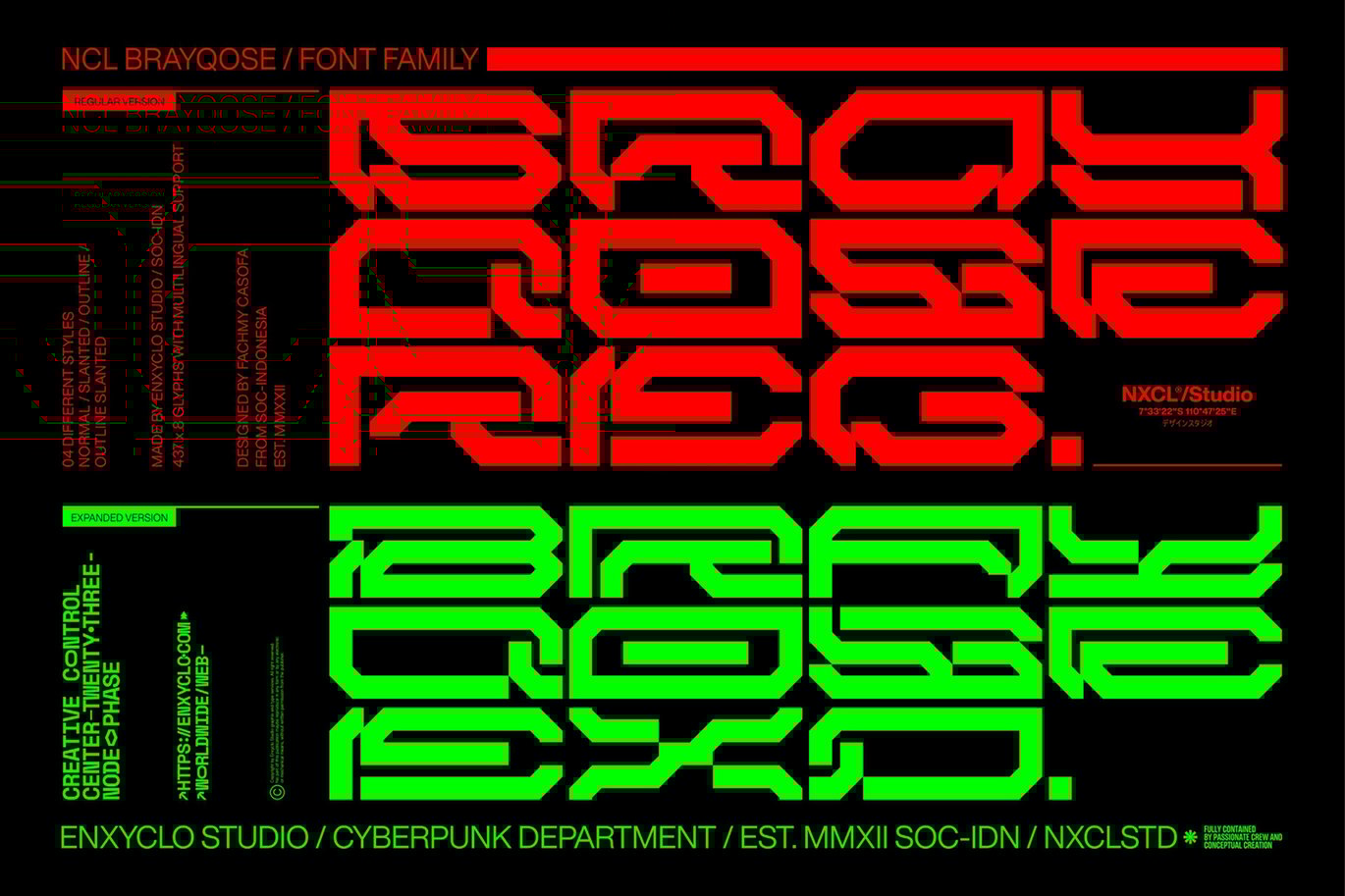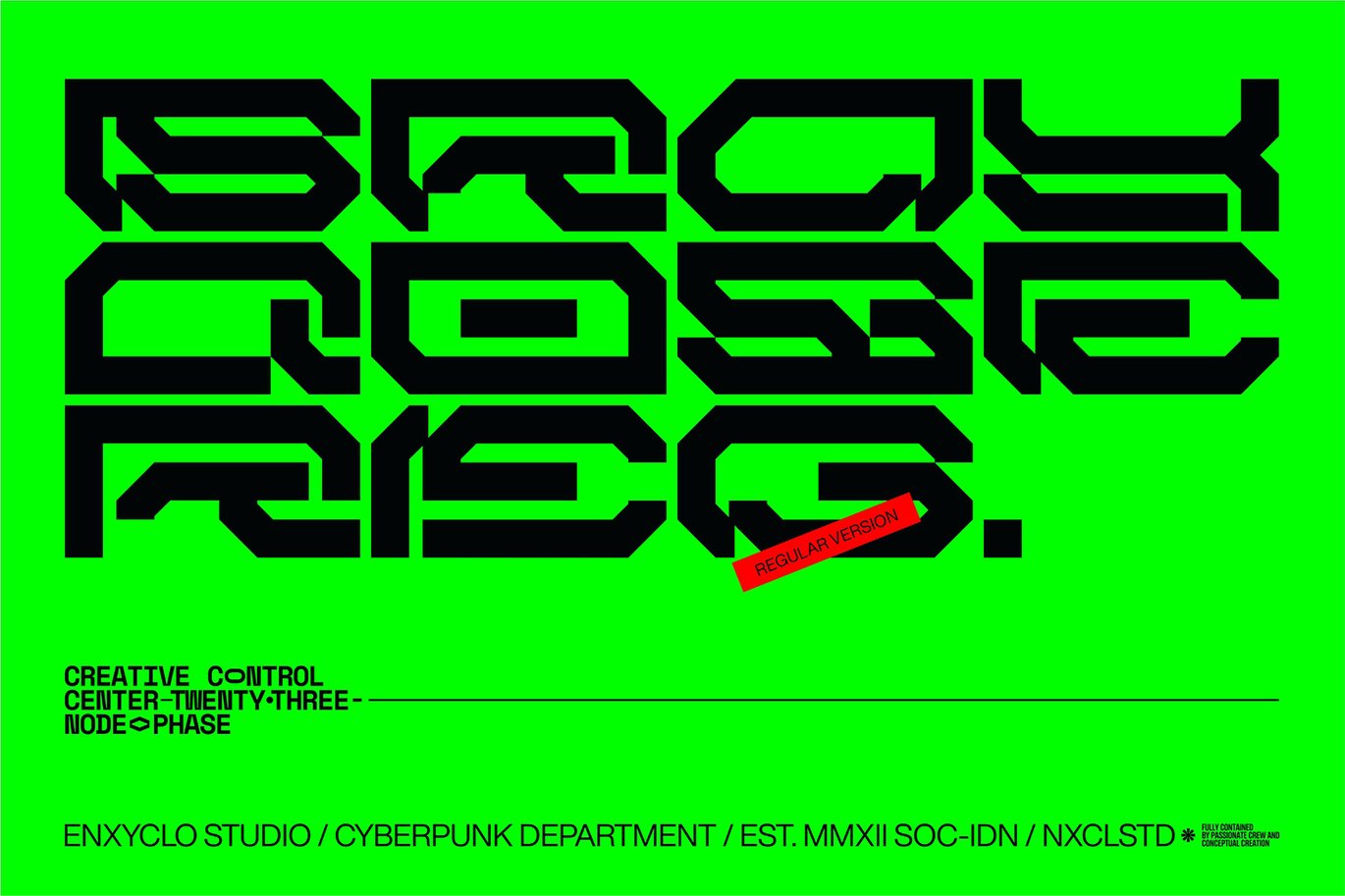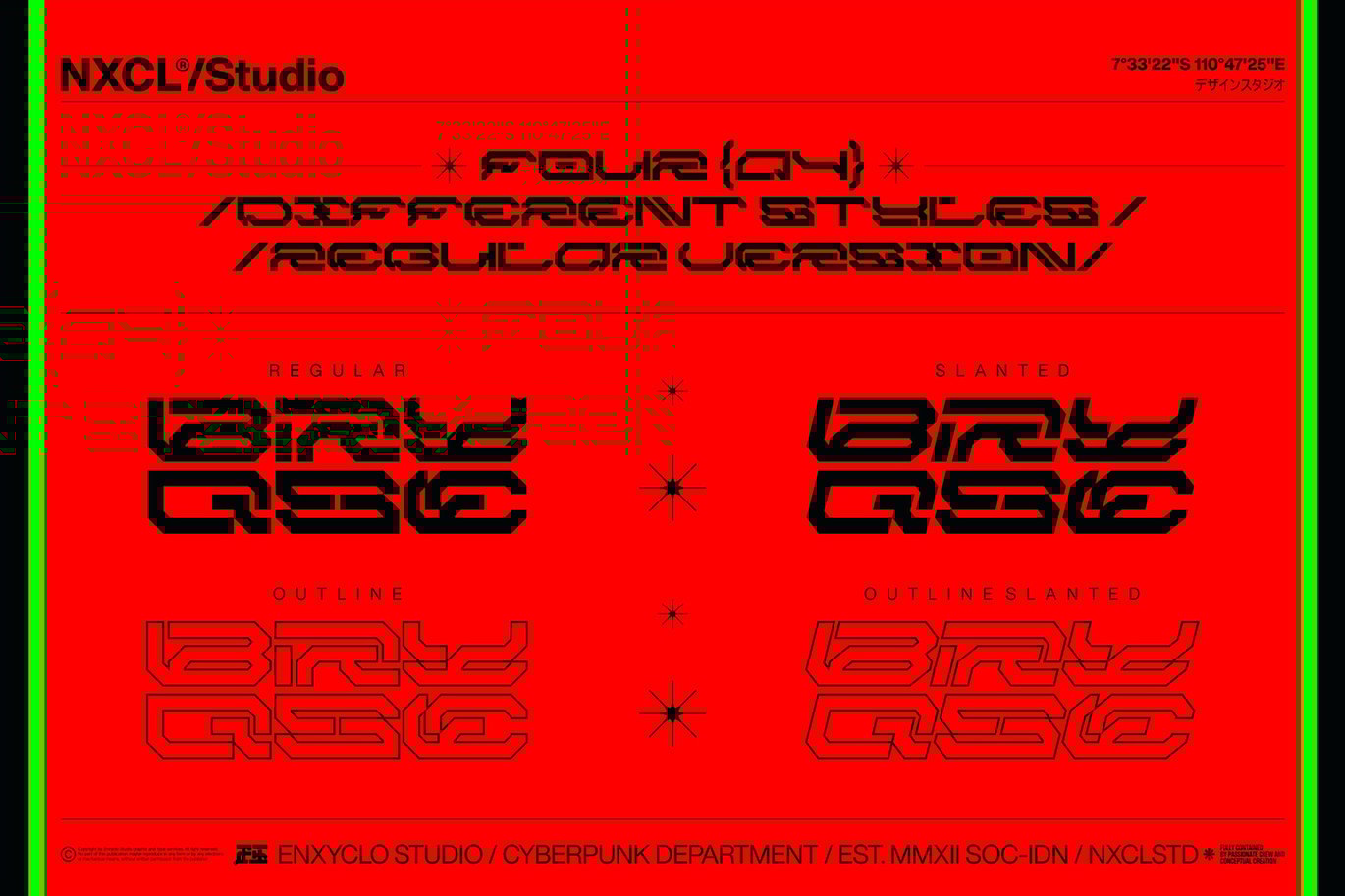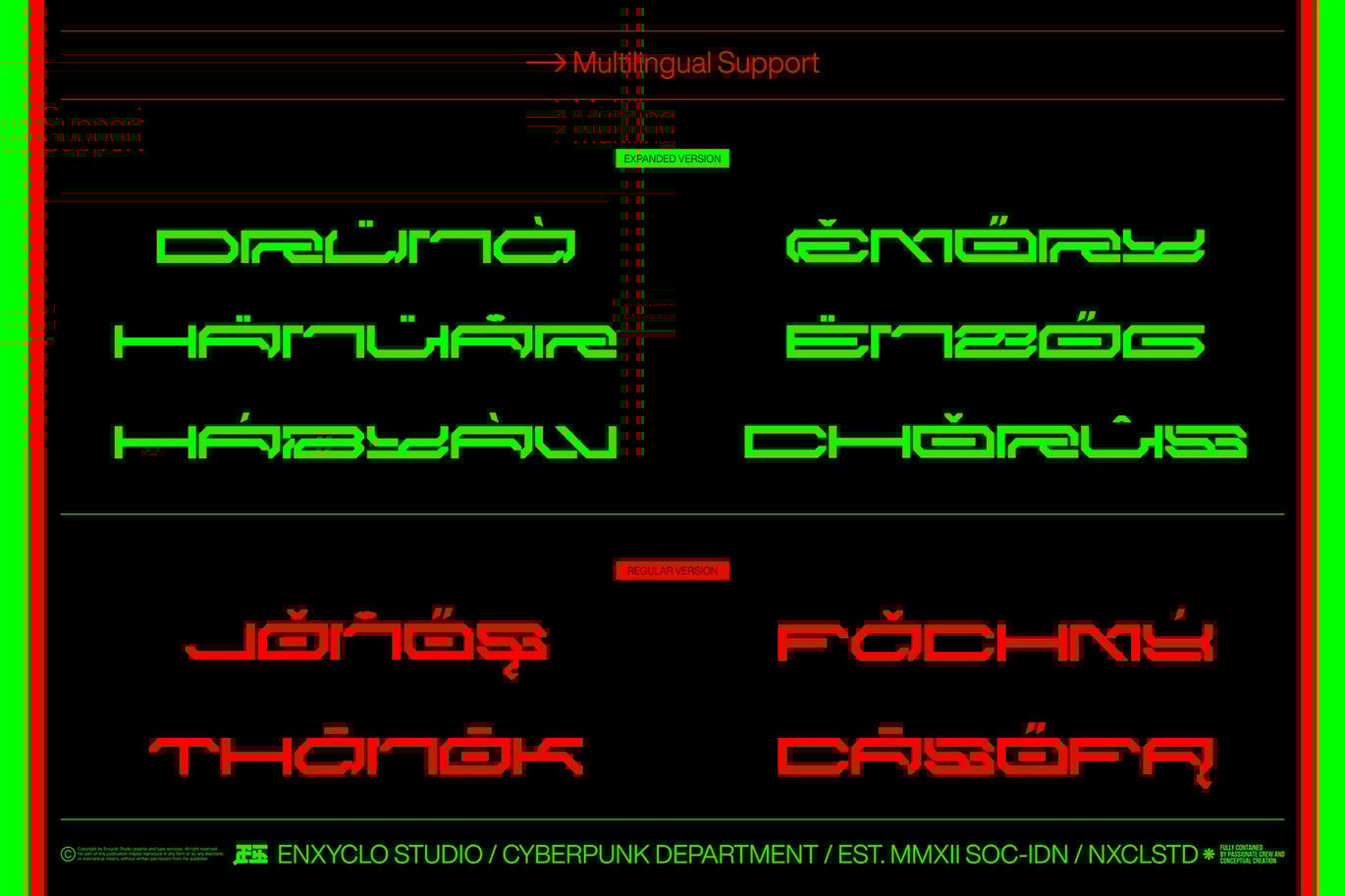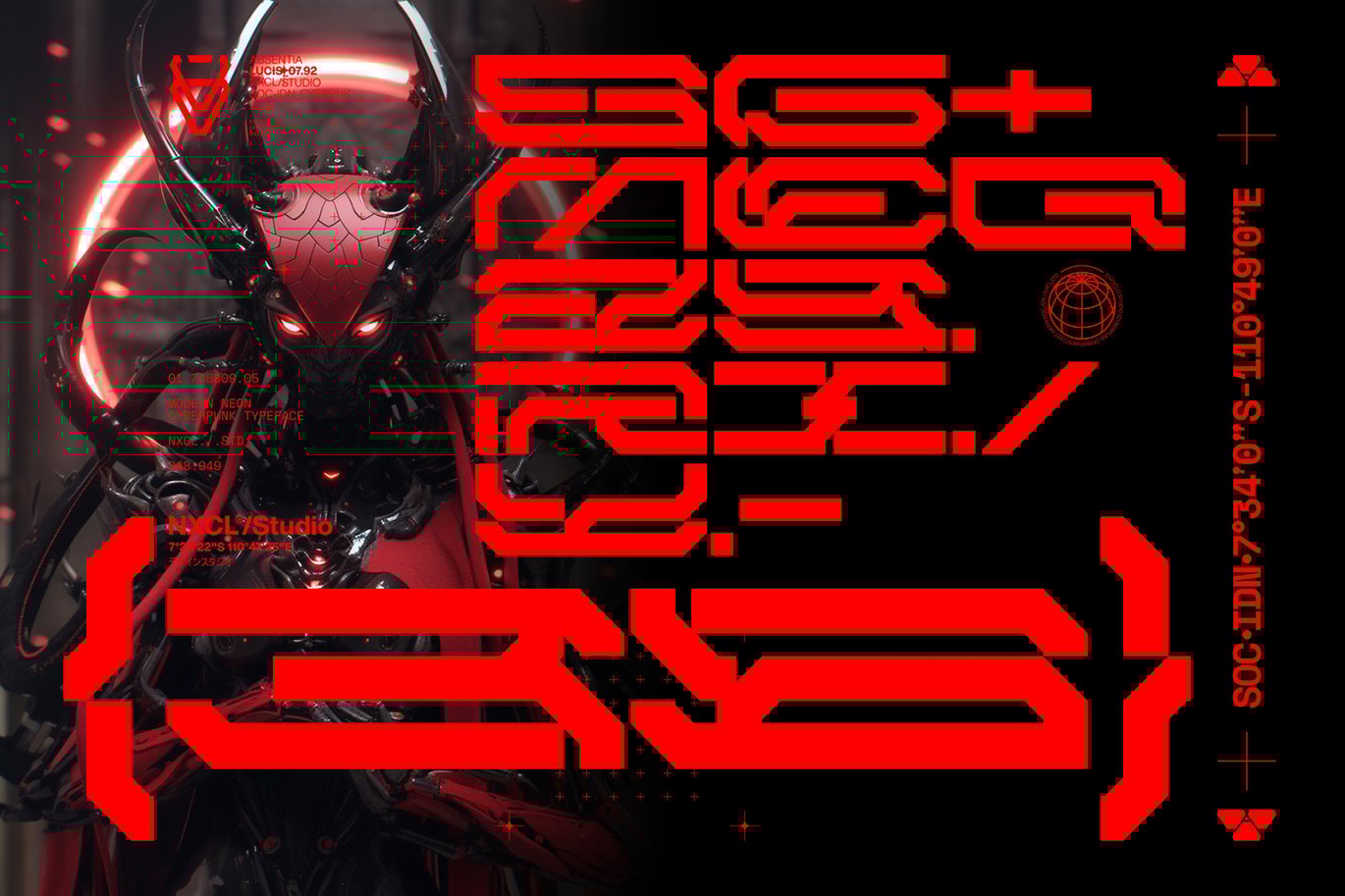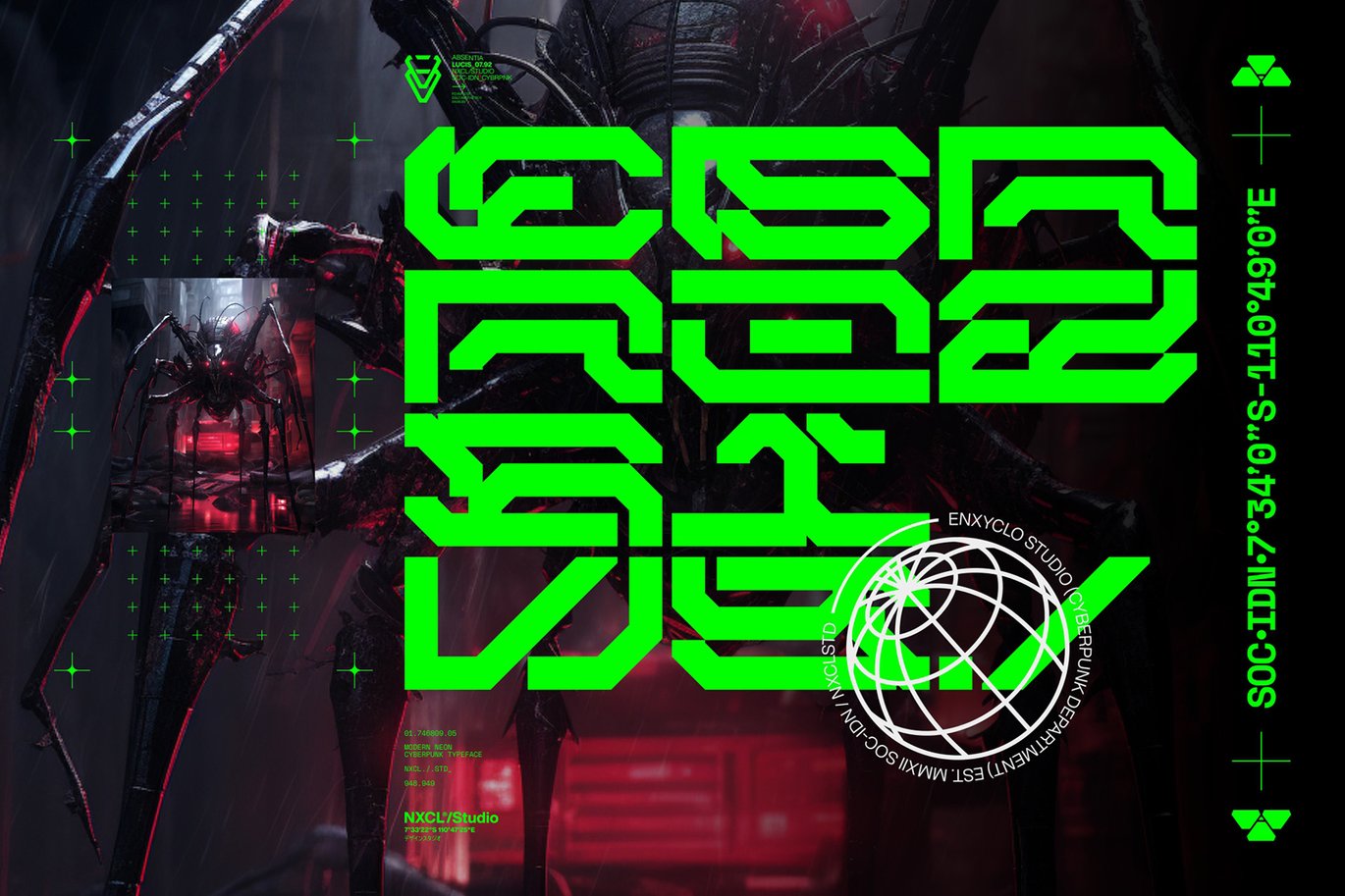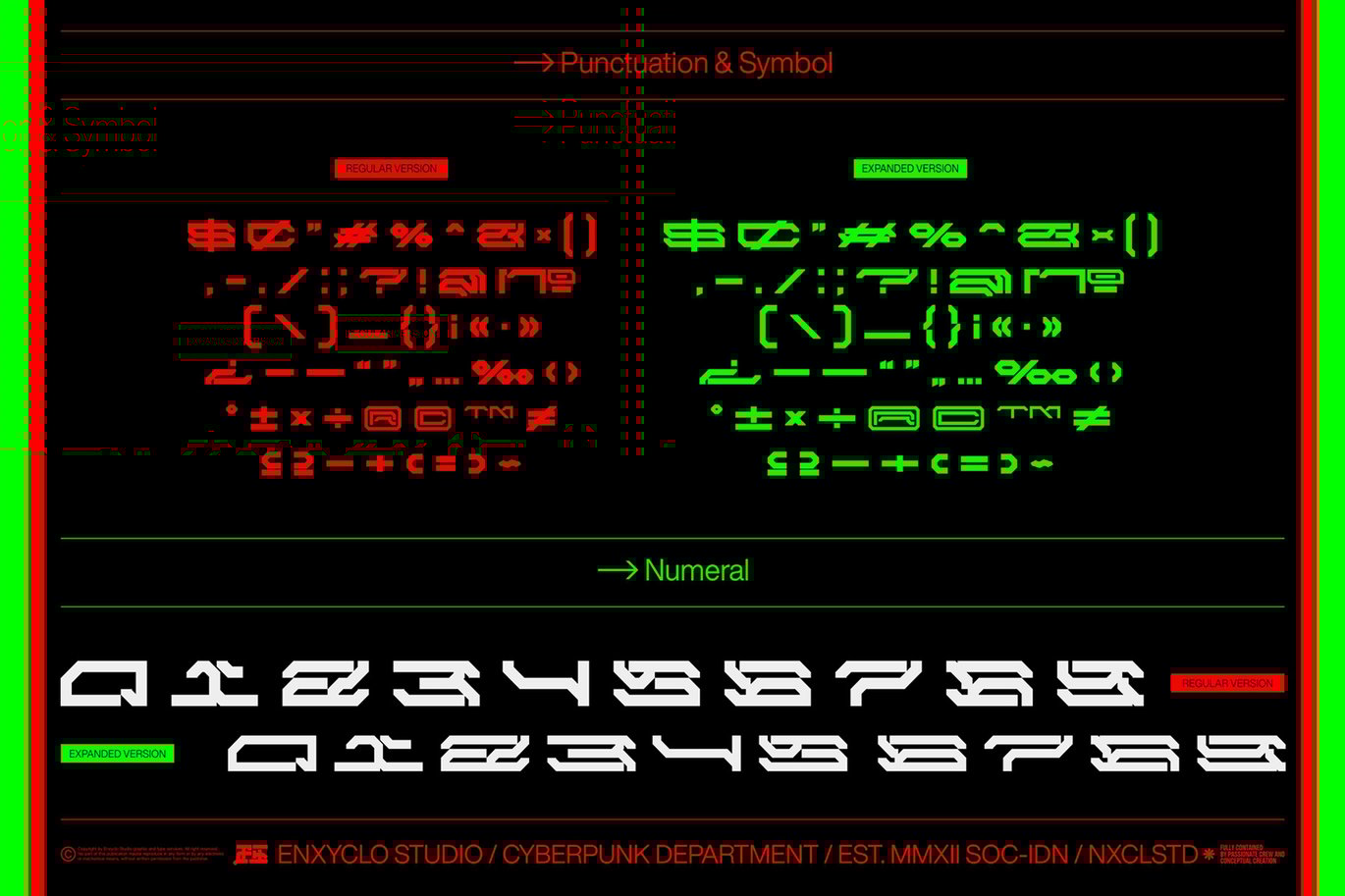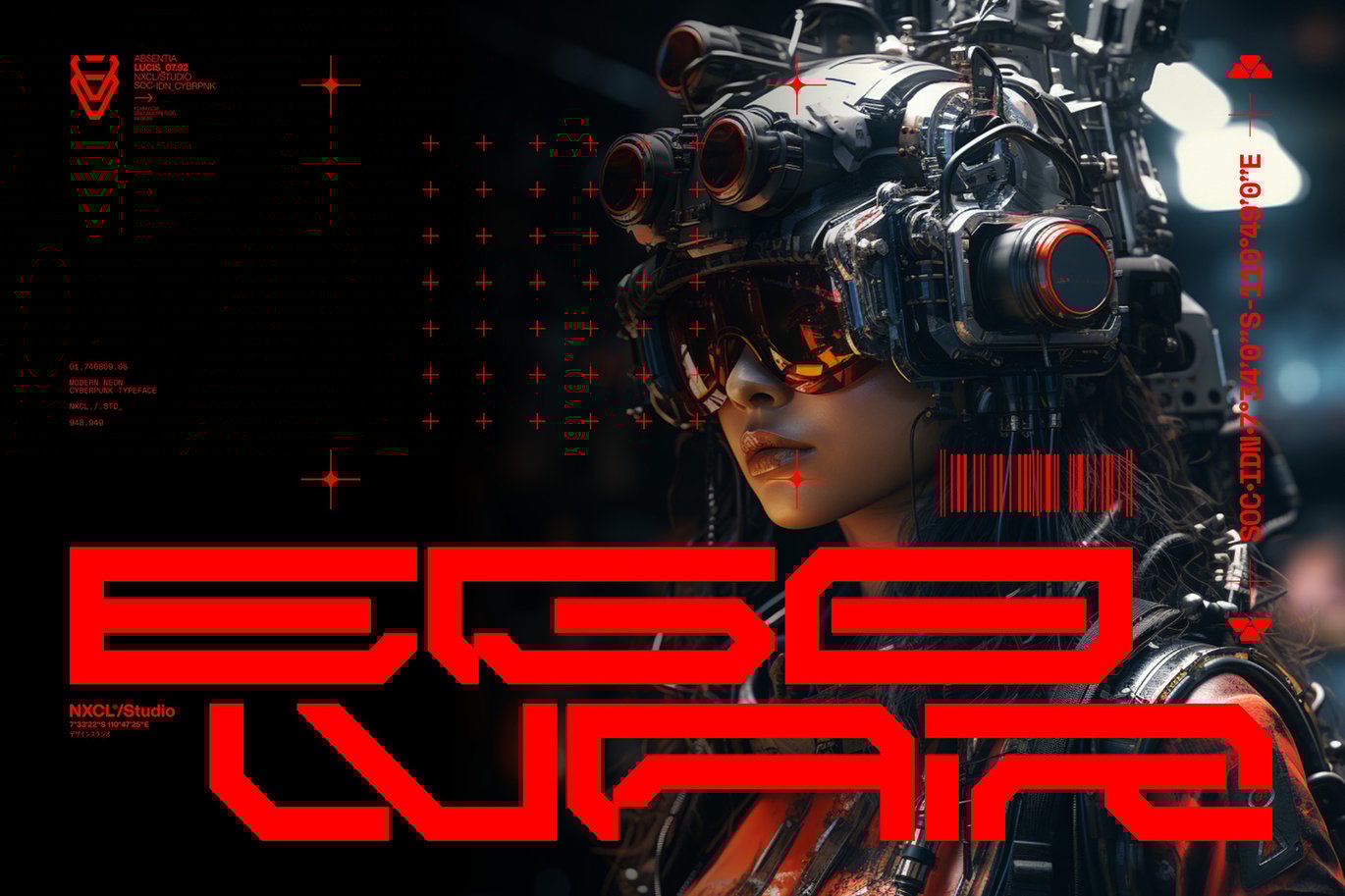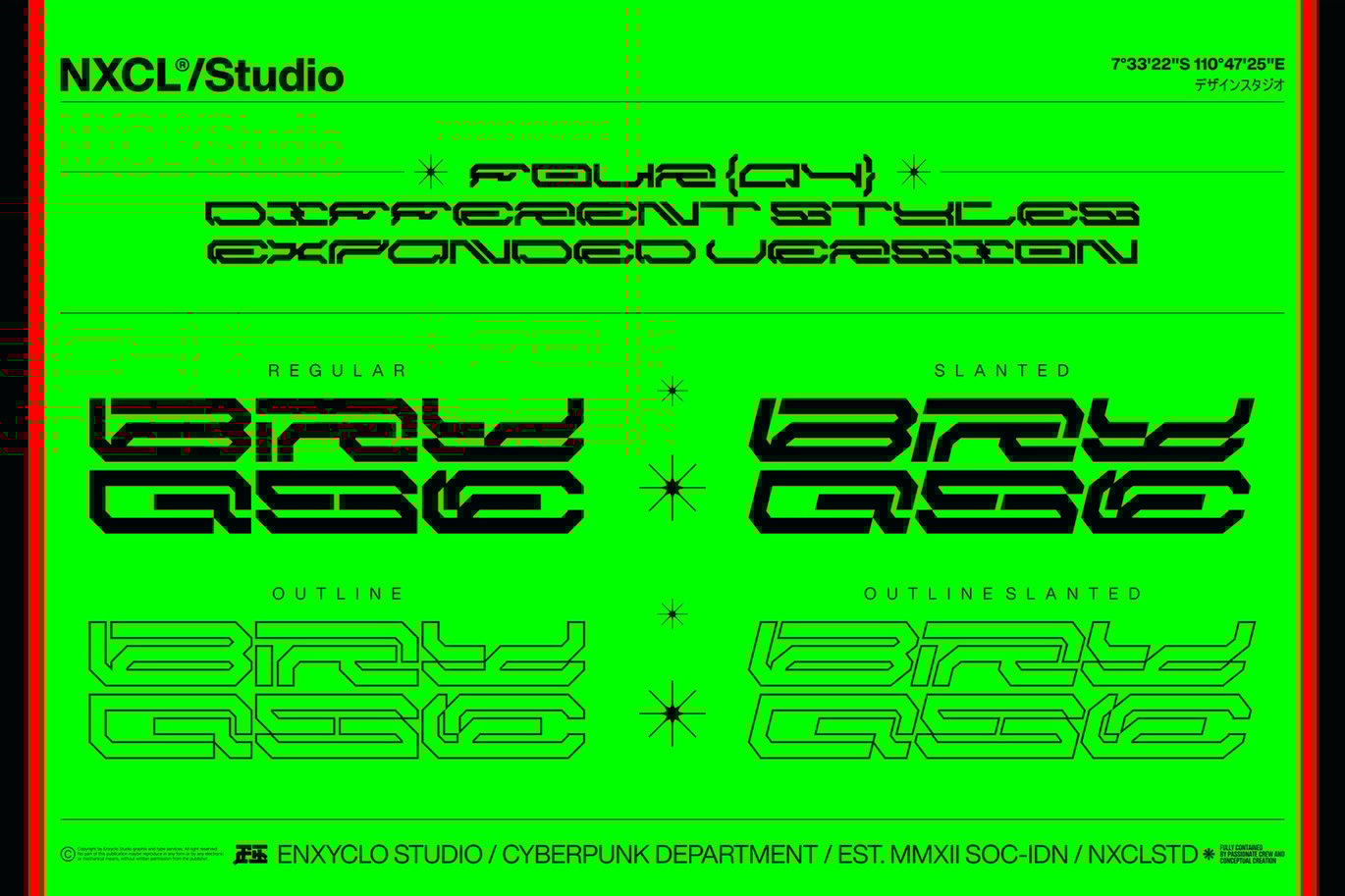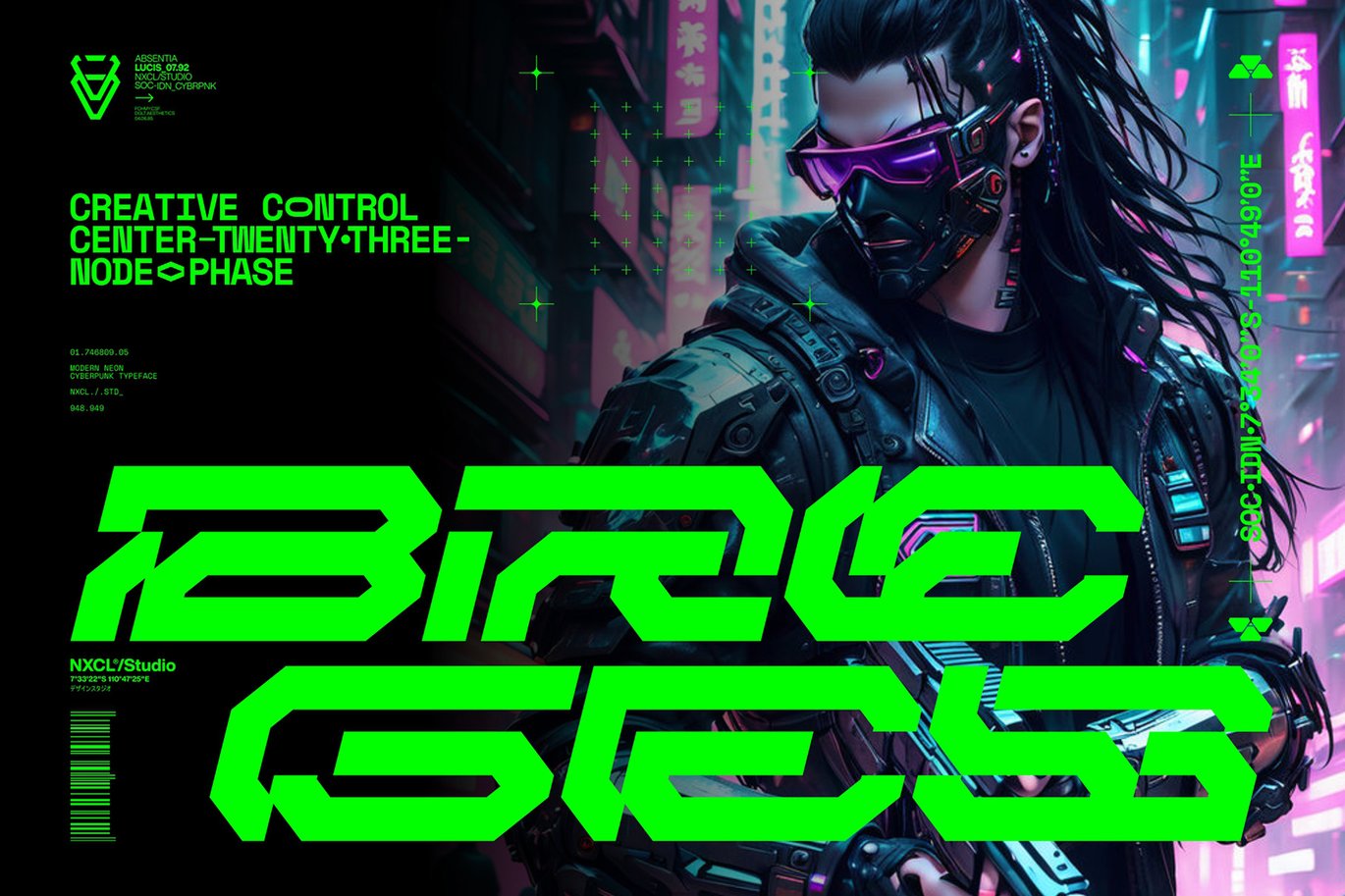
Brayqose Font Family – Futuristic Cyberpunk
BRAYQOSE font family is not your ordinary font. It’s a modern cyberpunk futuristic techno mecha from regular to expanded family font that takes your creativity to the next level. Its futuristic aesthetics bring a whole new dimension to your designs, making them stand out. Whether you’re working on a website, poster, logo, or any other project, this font adds that extra touch of innovation and sophistication.
- 8 Style:
- Normal Style: Regular, Slanted, Outline, Outline Slanted
- Expanded Style: Expanded, Expanded Slanted, Expanded Outline, Expanded Outline Slanted
- For Normal Style Contains 437 Glyphs for Each Style and 1748 Glyphs for Total
- For Expanded Style Contains 437 Glyphs for Each Style and 1748 Glyphs for Total
- Numeral, Punctuation & Symbols
- Stylistic Set 1-2